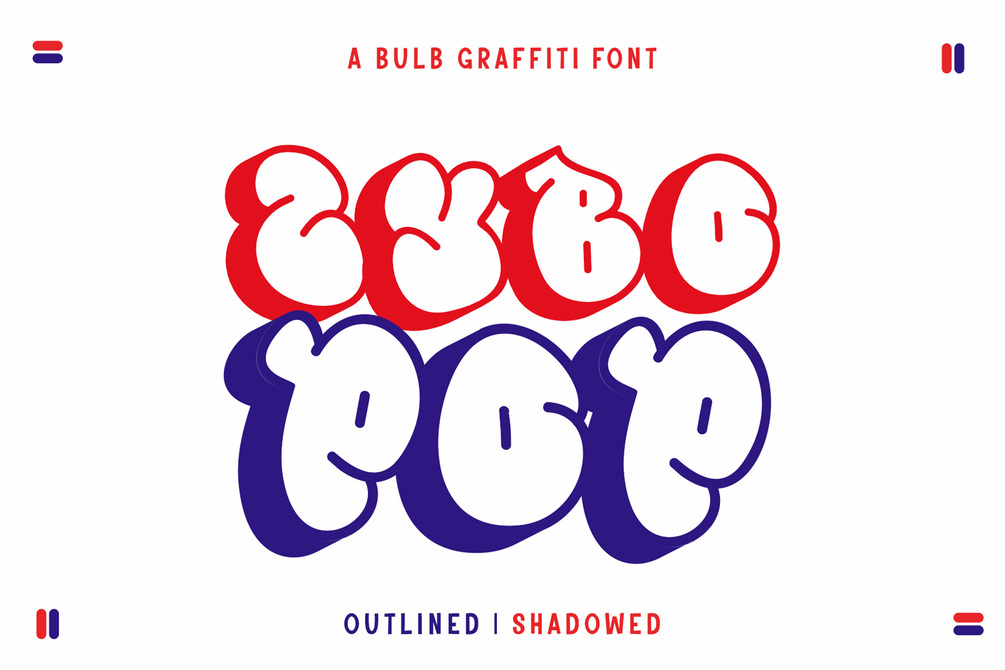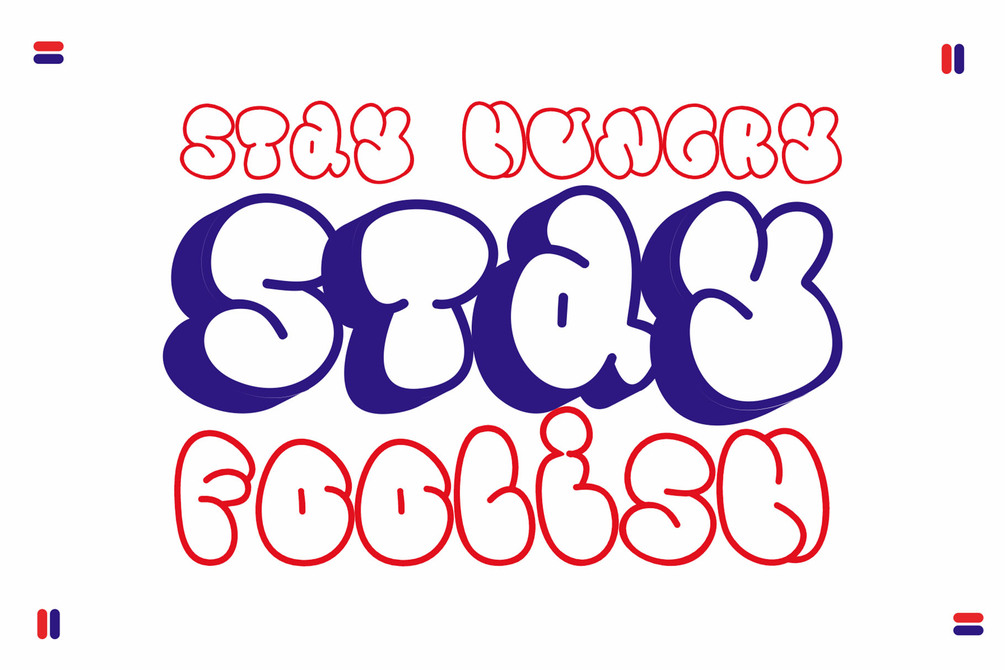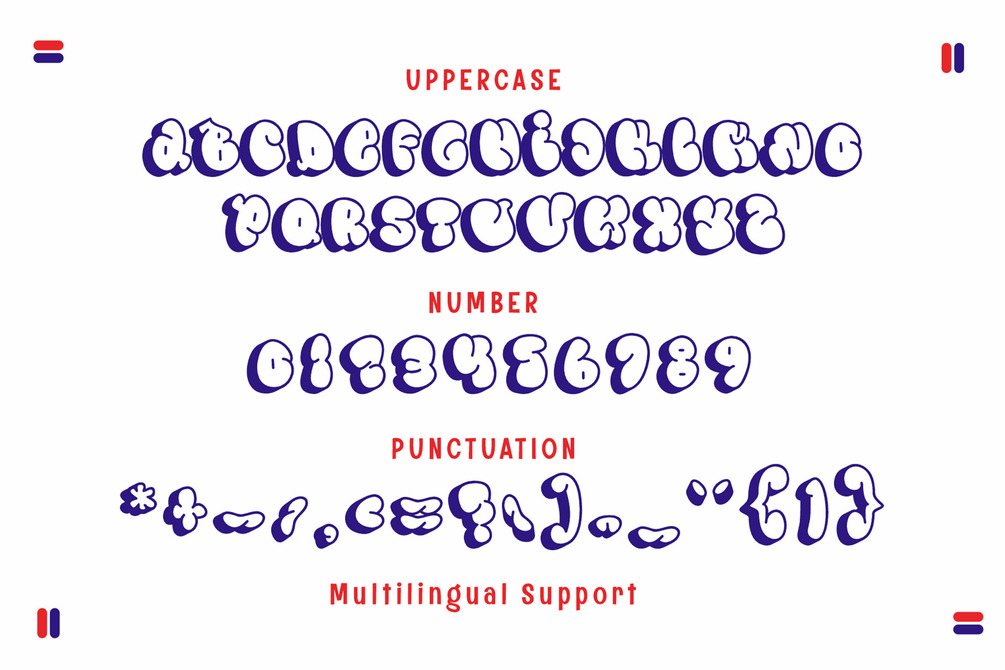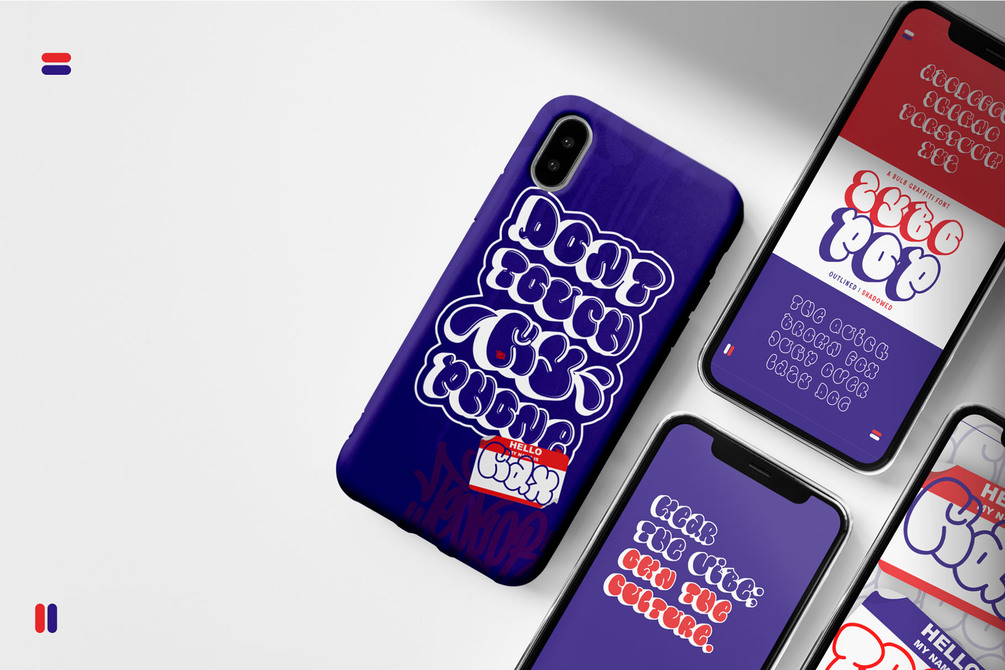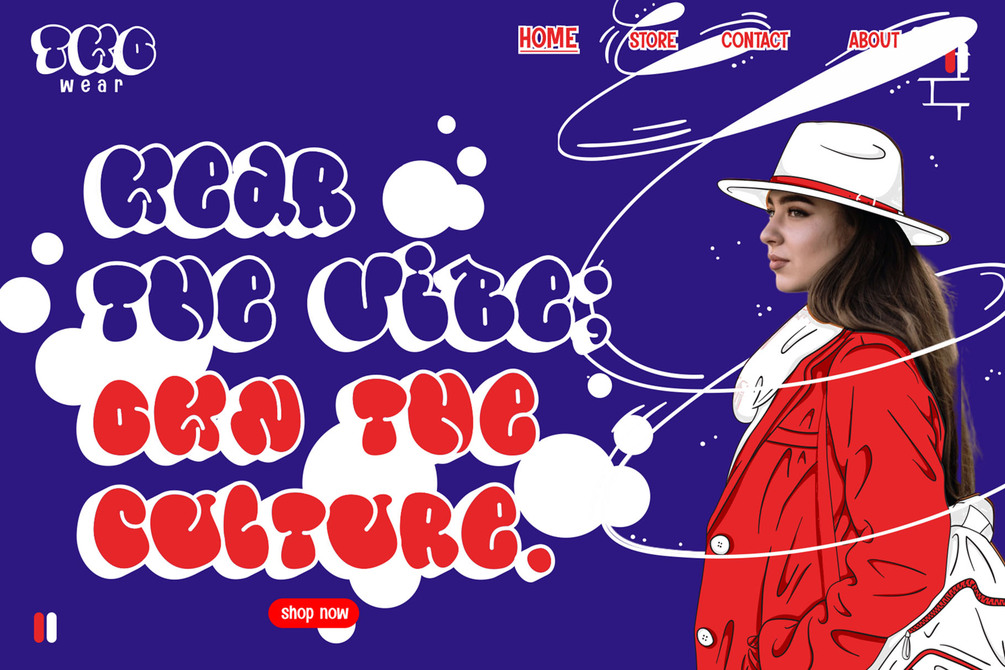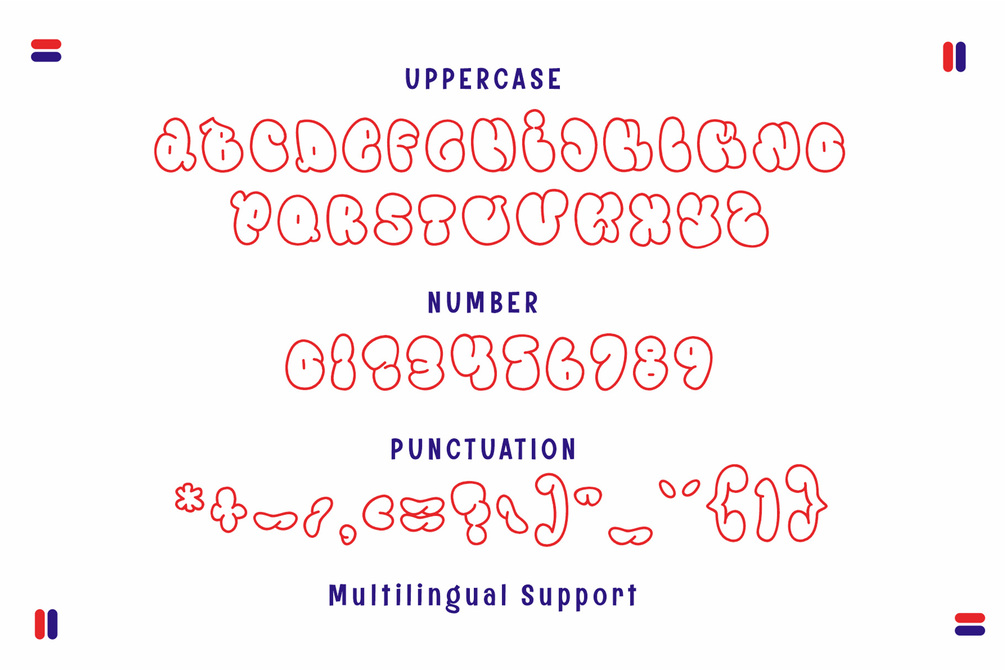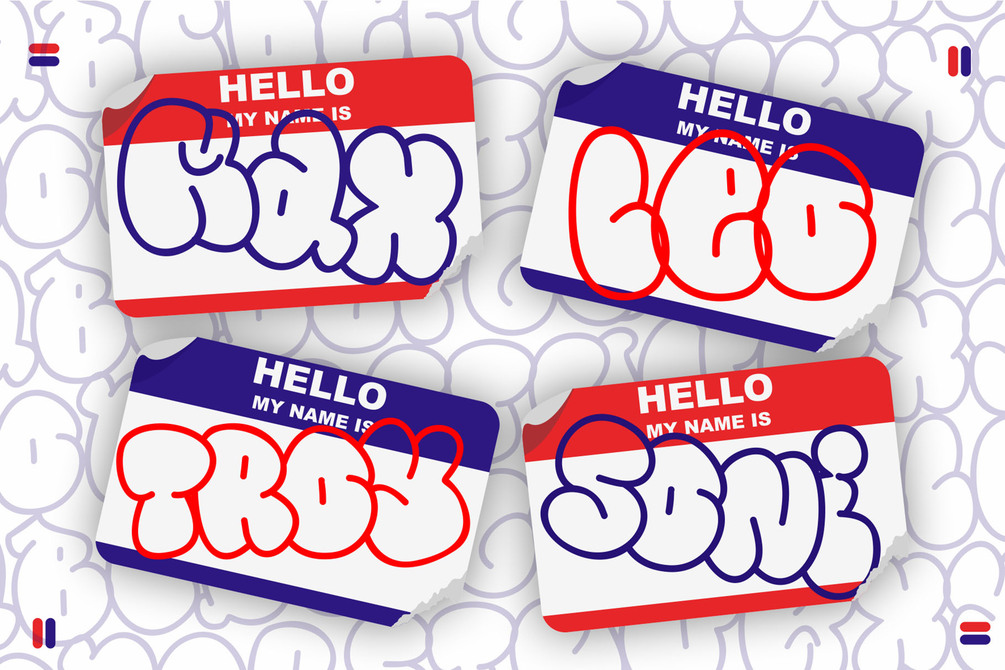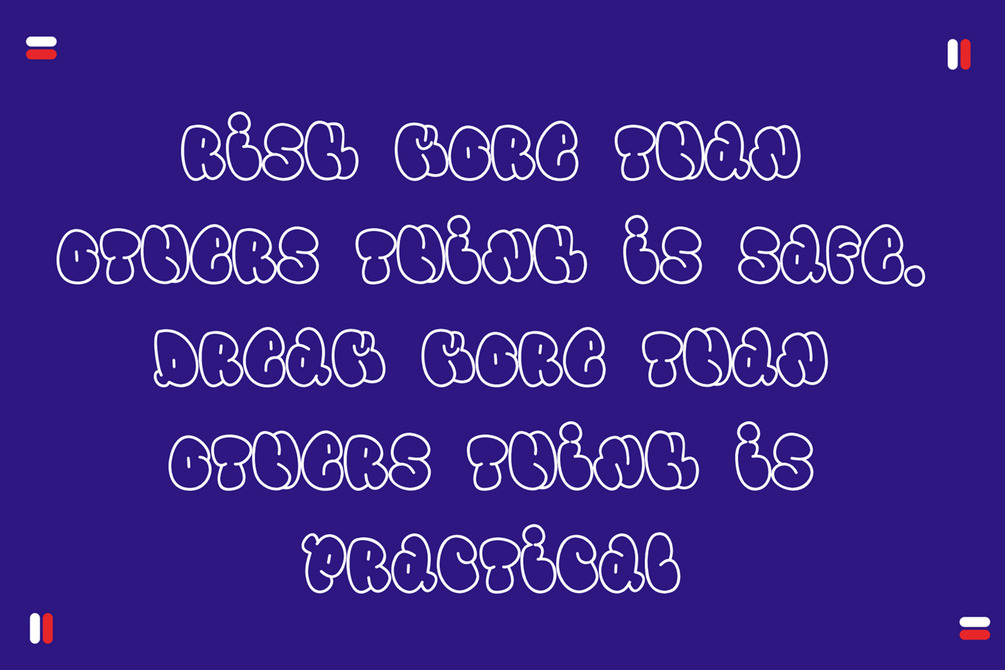
Zybo Pop is a vibrant, bulbous graffiti font that brings a bold, chubby aesthetic to any project. Featuring hollow characters with thick, rounded edges, it creates a fun and unique look reminiscent of classic pop art styles. This font includes two distinct styles—outlined and shadowed—which provide options for layering or adding extra depth and dimension to your designs. The outlined style emphasizes the playful, cartoon-like shapes of the letters, while the shadowed style adds a sense of weight and impact, making the font pop even more. With its cheerful, dynamic appearance, Zybo Pop is perfect for projects that need an eye-catching, youthful feel. Ideal for posters, event graphics, eye-popping logos, and creative packaging, this font captures the essence of playful graffiti with a bold, contemporary twist. Whether you’re aiming for a lively street art vibe or a retro pop art look, Zybo Pop brings energy and personality to every letter, making it a standout choice for all things fun and vibrant.
• Multilingual
• Versatile for branding, headline, or printing product